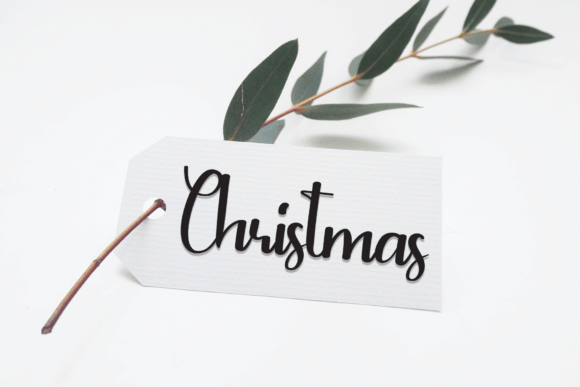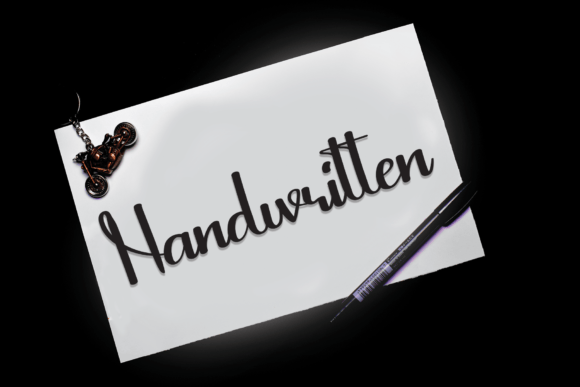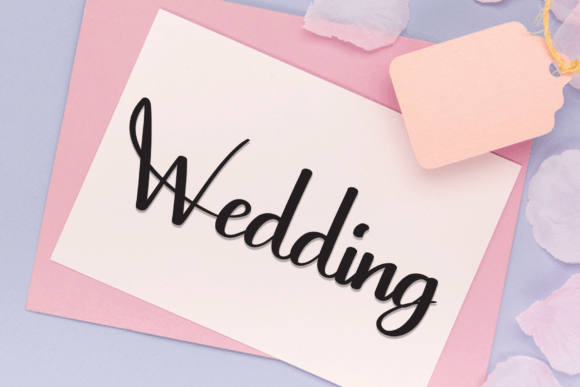
The Mountain Font Download is a fun and friendly handwritten typeface that brings warmth, charm, and personality to your creative projects. With its smooth curves and playful strokes, this font has a casual yet polished look that makes it suitable for both personal and professional use. As a result, it is a versatile option for designers who want their work to stand out while still feeling approachable.
Moreover, Mountain adapts seamlessly to digital and print designs. Whether you are crafting greeting cards, designing logos, or building social media posts, this font ensures that your projects look stylish and inviting. In addition, its clear readability makes it ideal for both small captions and bold headlines.
• A fun and friendly handwritten style with smooth strokes
• Excellent readability in both small and large sizes
• Versatility across digital and print platforms
• A casual yet polished look for modern projects
• Balanced characters that create a professional finish
• Craft projects – Add handmade charm to DIY creations
• Greeting cards and invitations – Personalize your messages with playful elegance
• Logos and branding – Create warm, approachable brand identities
• Social media graphics – Make eye-catching posts for Instagram, Pinterest, and blogs
• Event posters and flyers – Use bold handwritten text to capture attention
• Stationery and print products – Stylish yet casual designs for personal or business needs
Because of its adaptability, Mountain quickly becomes a favorite font in any designer’s collection.
The Mountain Font Download stands out from generic handwritten fonts because it combines friendliness with professional polish. Its natural handwritten strokes add authenticity, while its balanced design ensures clarity across projects. In addition, it works well for both playful and formal themes, making it one of the most versatile choices available.
Furthermore, it is beginner-friendly yet sophisticated enough for expert designers. As a result, Mountain offers flexibility, ease of use, and creative freedom all in one.
In conclusion, the Mountain Font Download is a fun, friendly, and versatile handwritten typeface that enhances any design. From greeting cards and branding to social media and DIY crafts, it ensures that your projects carry a warm and approachable handwritten touch.